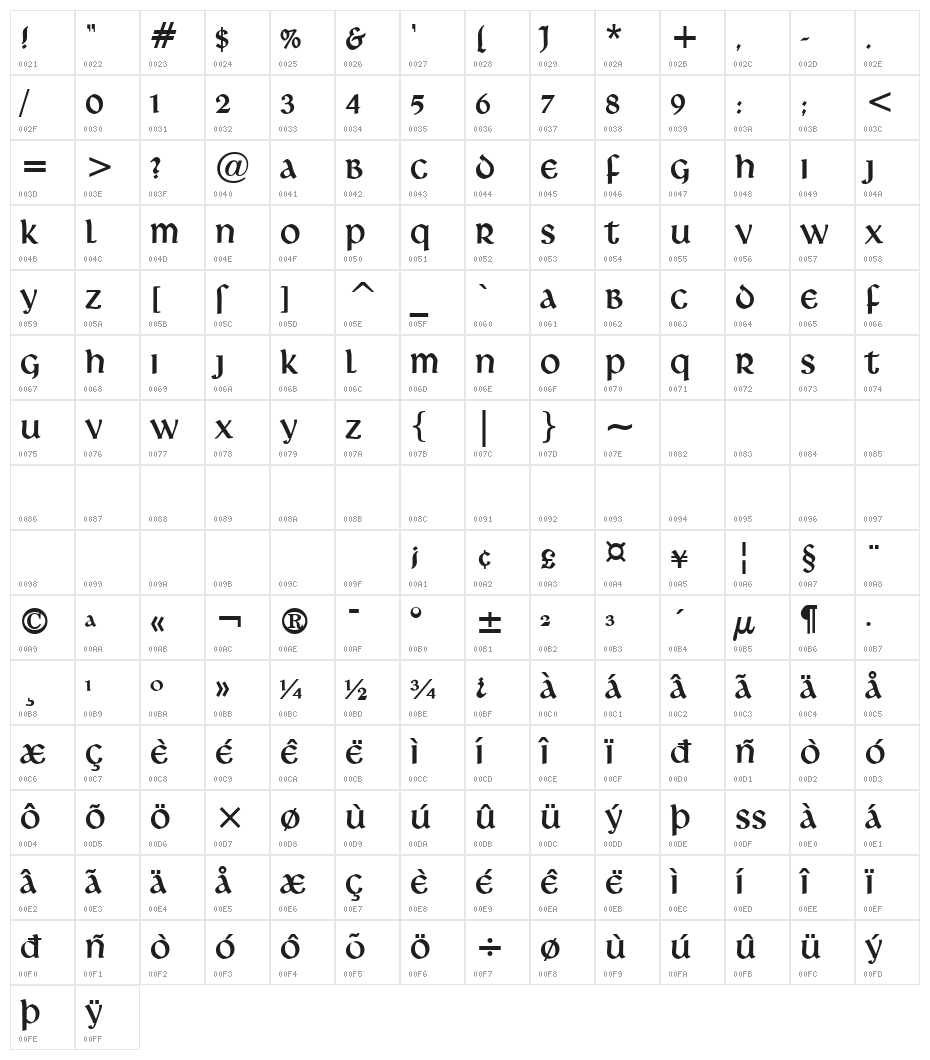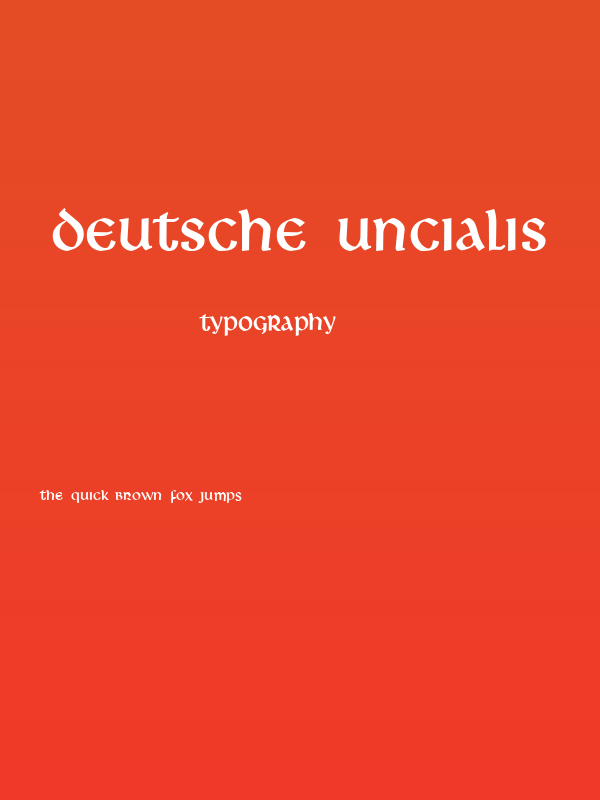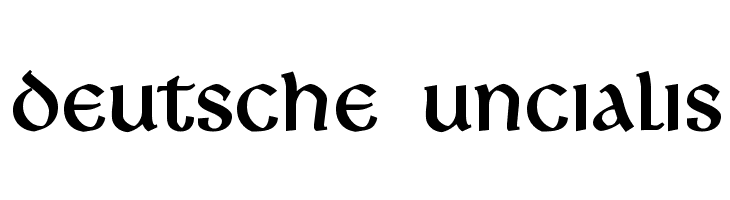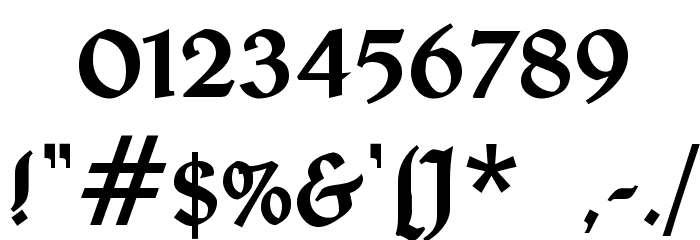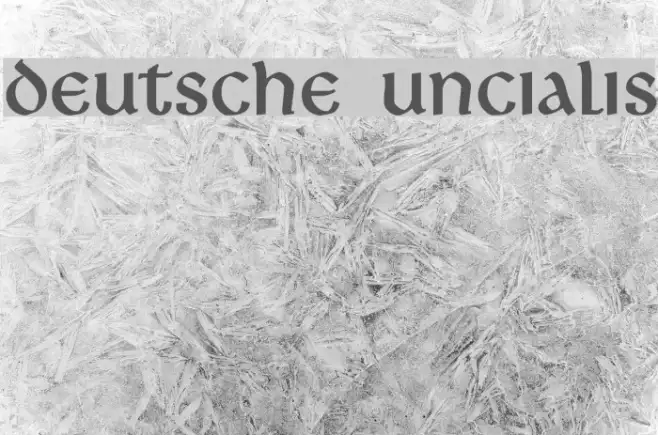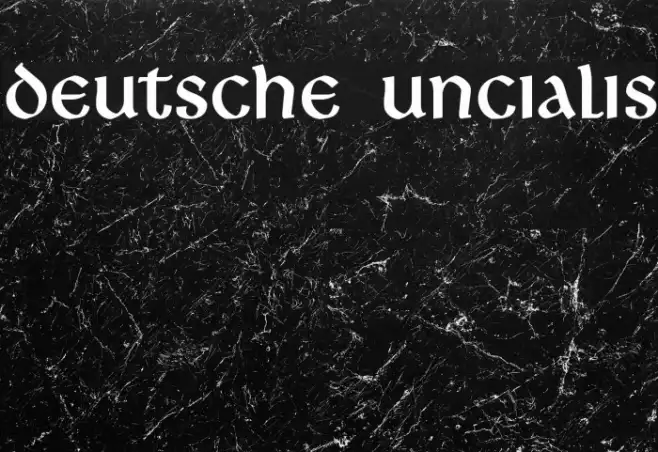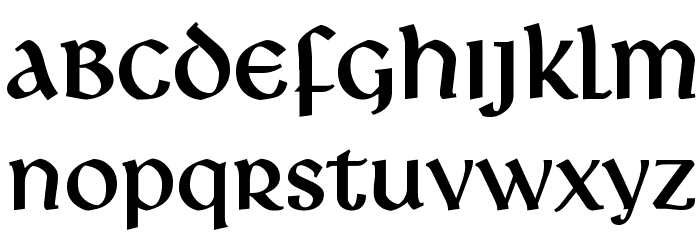
Deutsche Uncialis Font
Deutsche Uncialis Description
This font exhibits a classic and historical style, reminiscent of medieval script with a modern twist. The characters are bold and slightly condensed, featuring sharp, angular strokes that give it a distinct, authoritative presence. The uppercase letters are particularly striking, with a uniform height and a slightly wider stance than the lowercase letters, which are more compact and rounded. The numerals are consistent with the overall style, maintaining the same boldness and angularity. Special characters are well-integrated, matching the aesthetic of the alphabetic characters. This font is ideal for projects that require a touch of historical elegance and sophistication.
| Width | Condensed |
| Overall Style | Classic |
| Proposed Projects | Ideal for historical documents, book covers, branding for luxury products, or any project requiring a classic, authoritative look. |